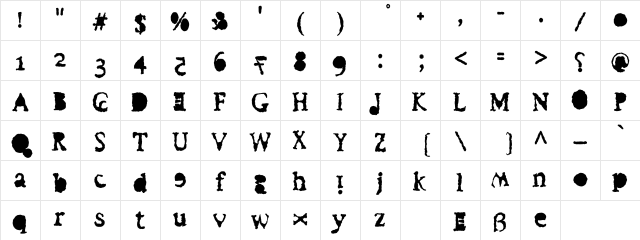
VTEbola MarburgBlackVomit
Style: MarburgBlackVomit
Complete VTEbola MarburgBlackVomit glyph index. Displaying only characters natively supported by VTEbola MarburgBlackVomit font.
Design Context for VTEbola
VTEbola is a composed and adaptable typeface that performs quietly and consistently across a wide range of design contexts.